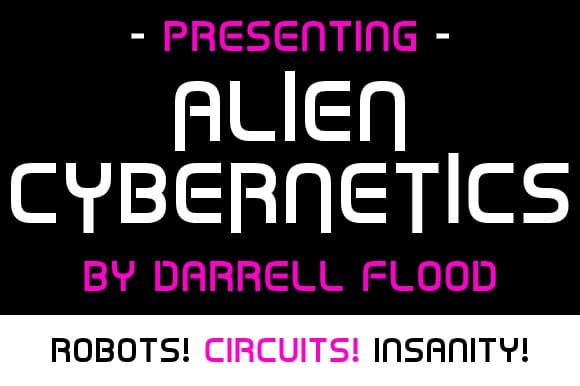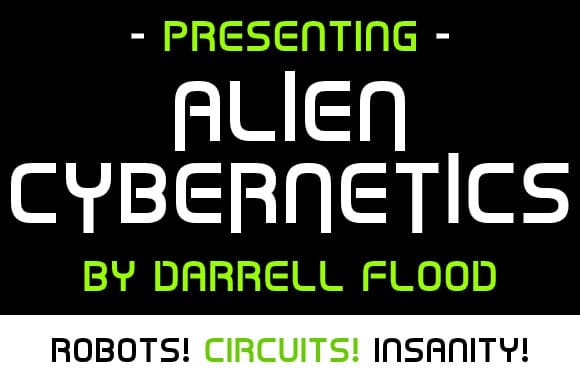
Alien Cybernetics Font
Alien Cybernetics Font is a slick modern sci-font with a high tech curved style. Perfect for alien encounters and futuristic themes!